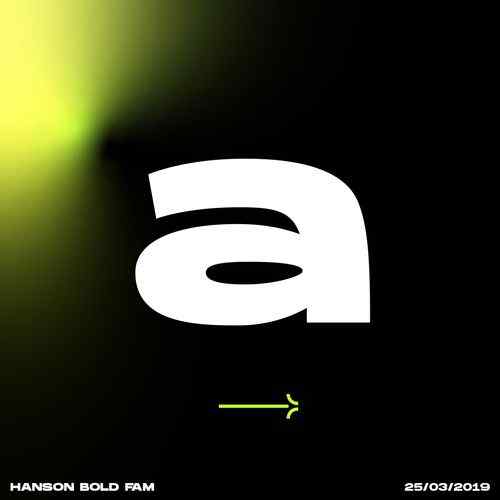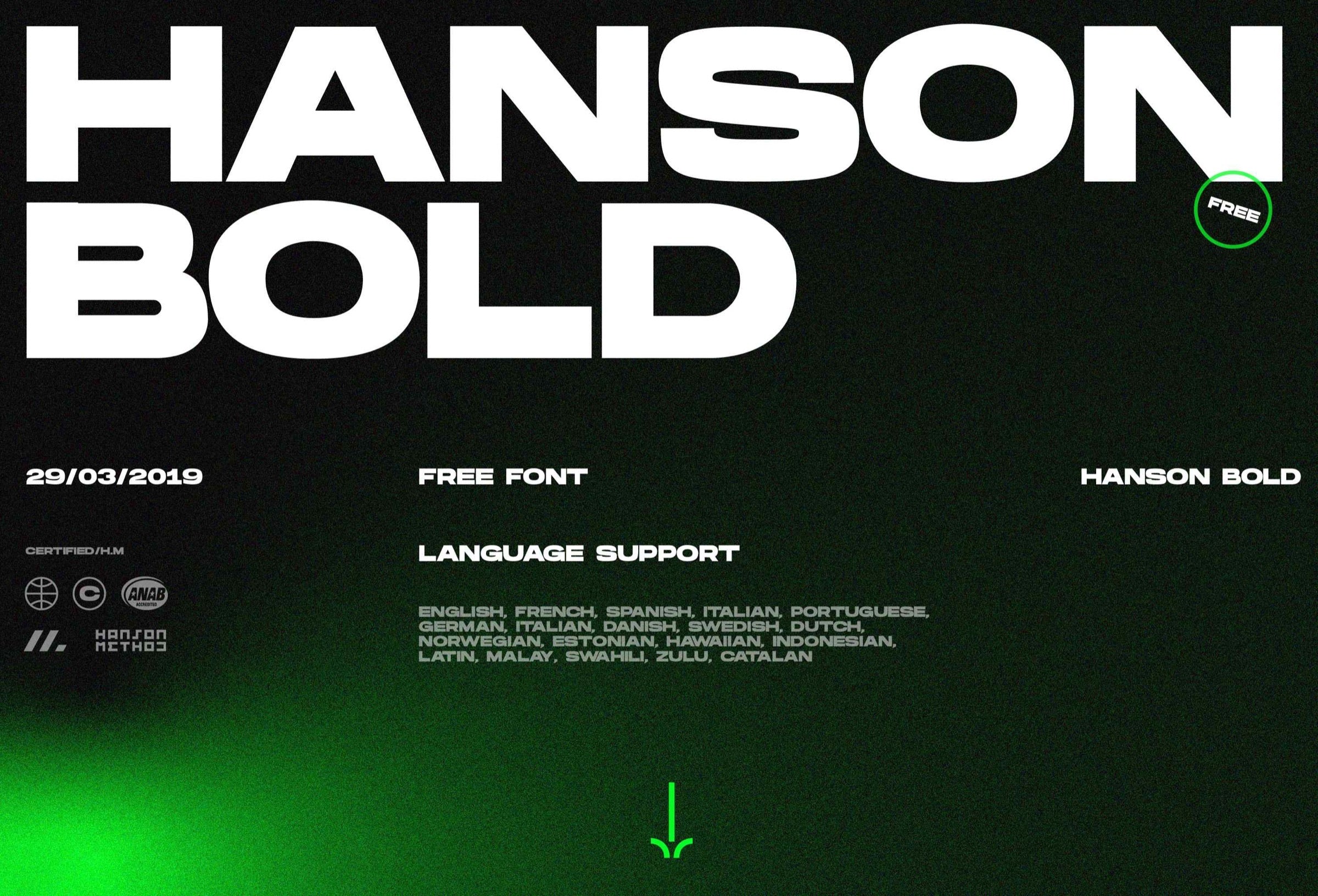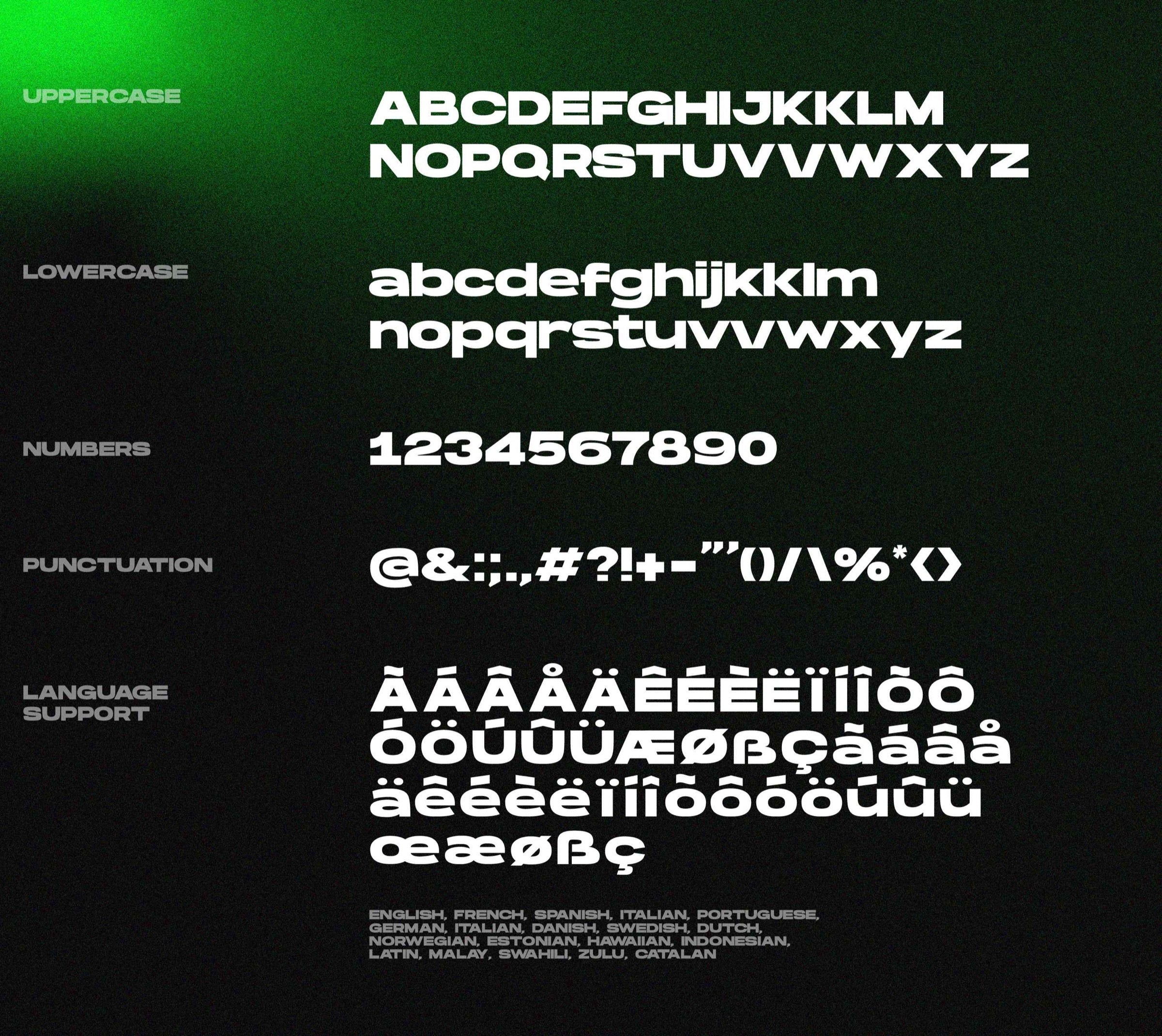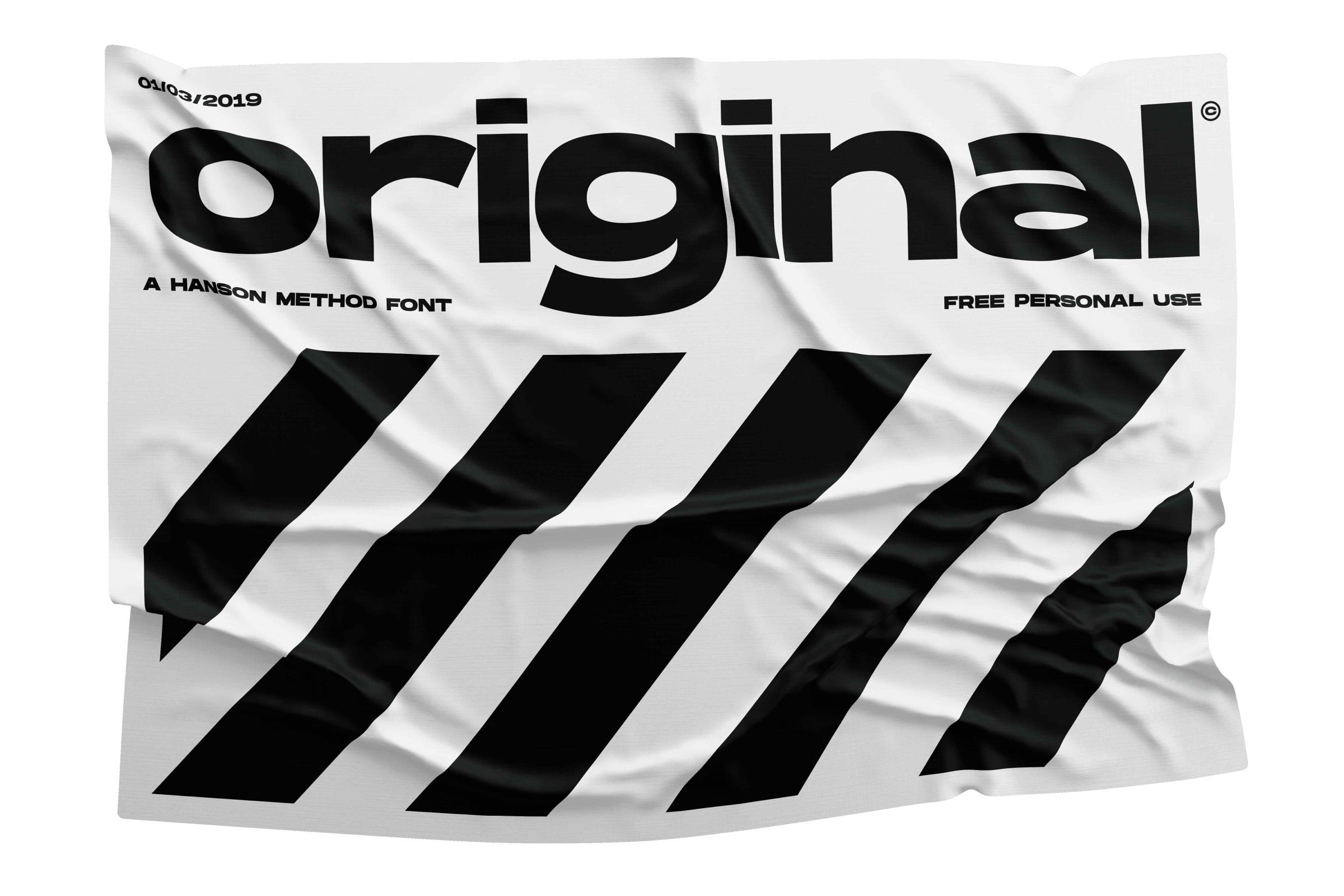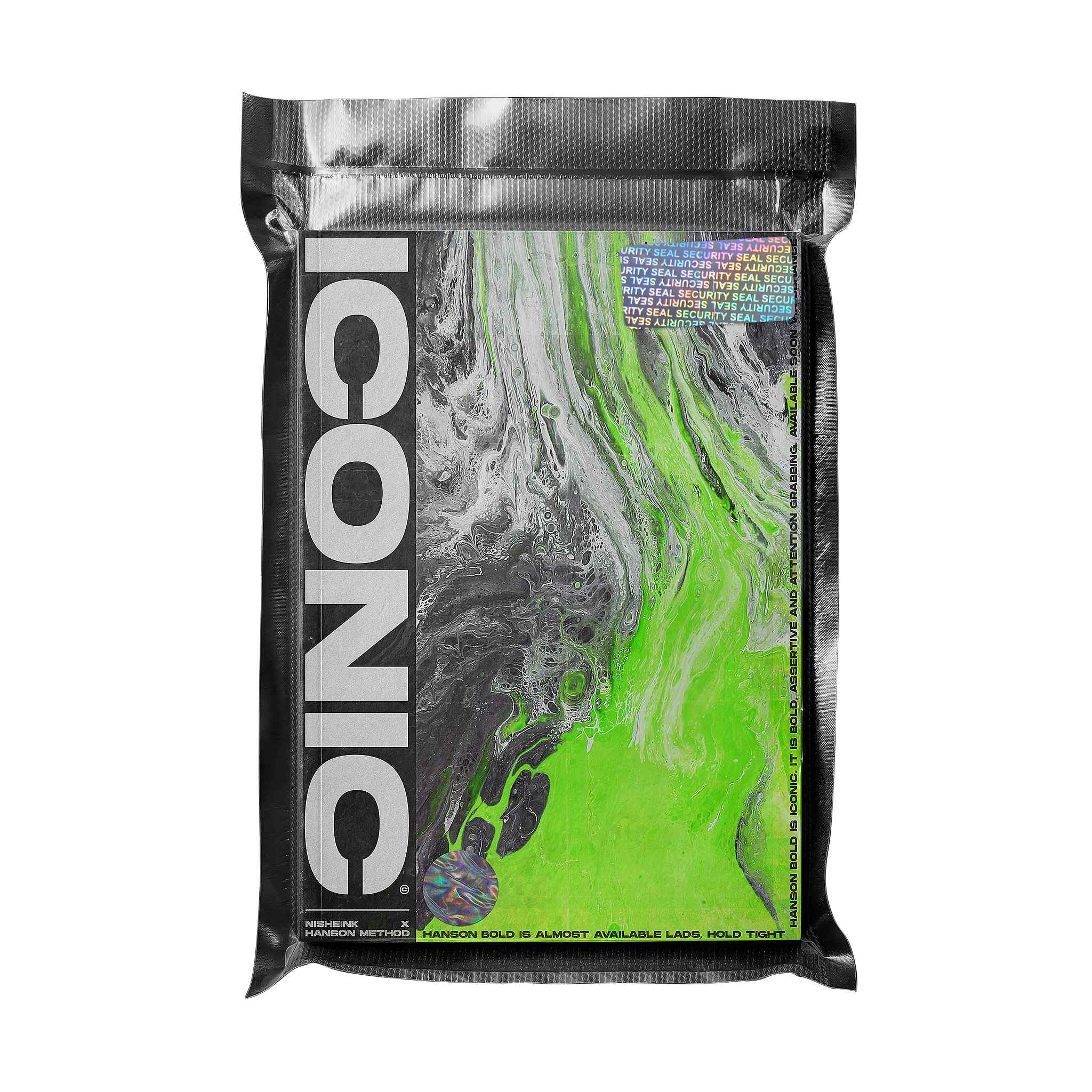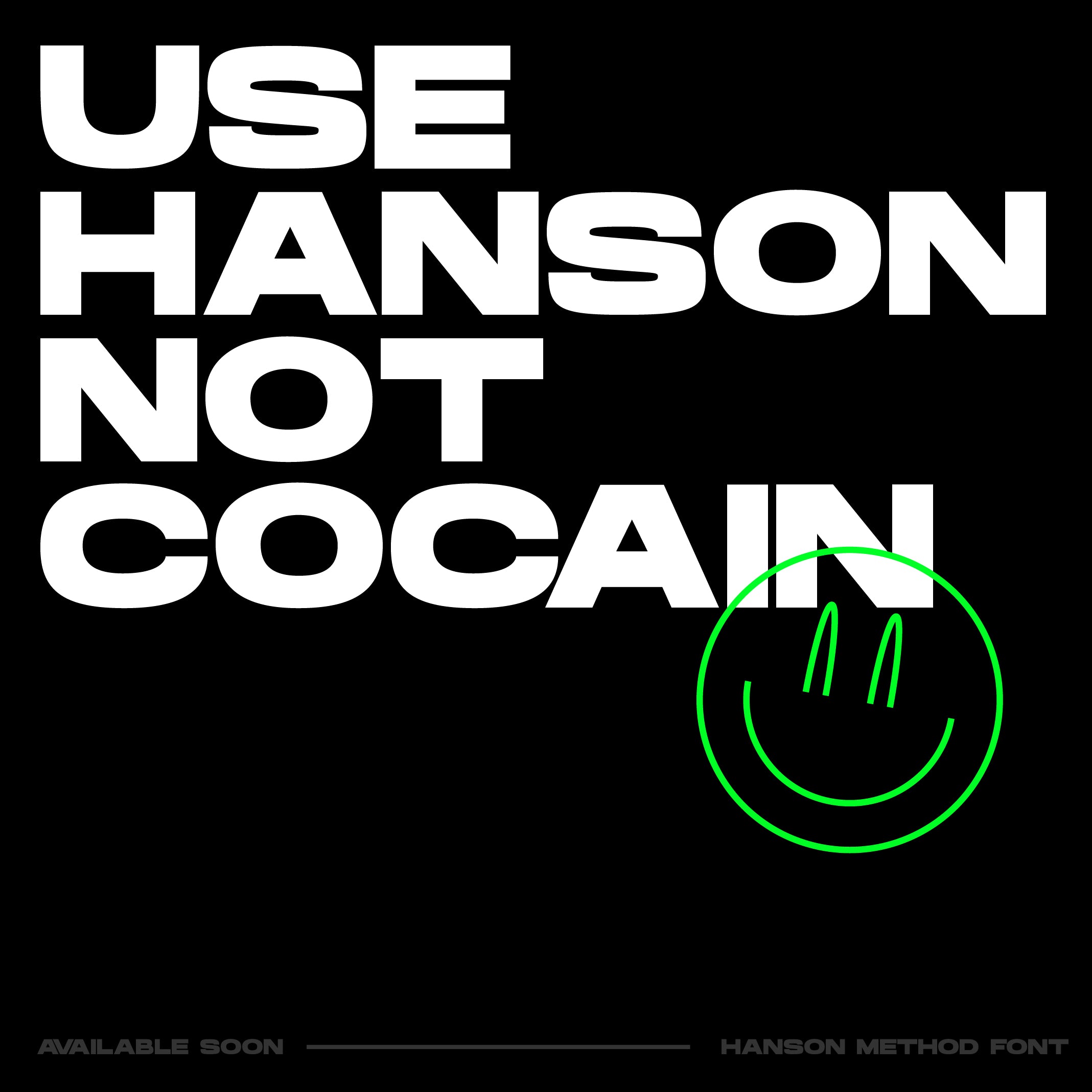
Hanson Bold Font [Free]
An extended bold cut, free to download. Wide, heavy, and useful anywhere a headline needs to hold a page on its own.
- Extended width